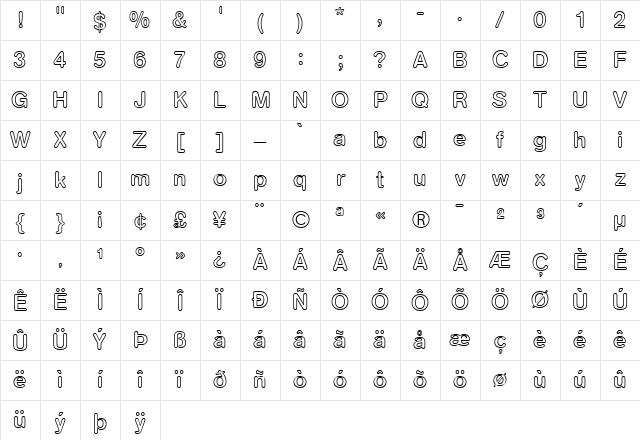
AGRoundedMediumOutline- is built around its visual character rather than neutral utility - its distinctive forms are designed to make an impression at display sizes.